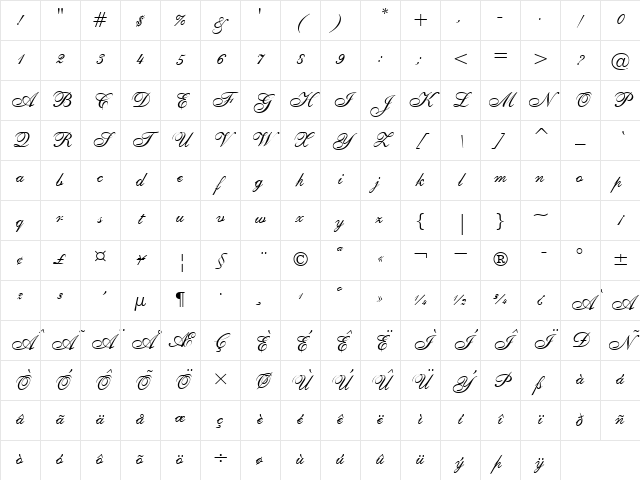
Complete Sheer Beauty Normal glyph index. Displaying only characters natively supported by Sheer Beauty Normal font.
Sheer Beauty is a composed and adaptable typeface that performs quietly and consistently across a wide range of design contexts.